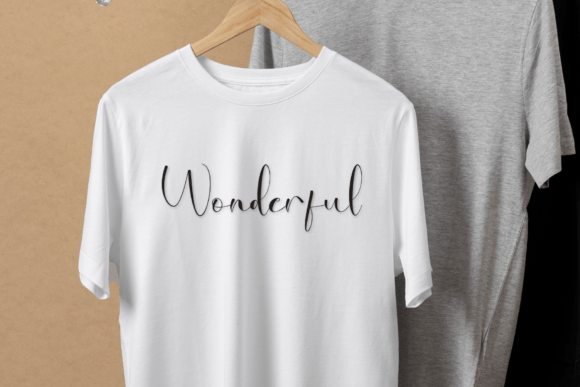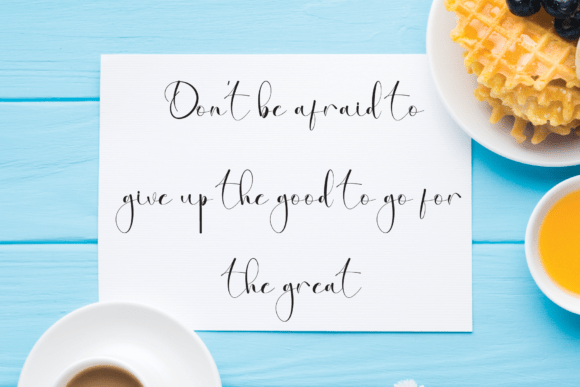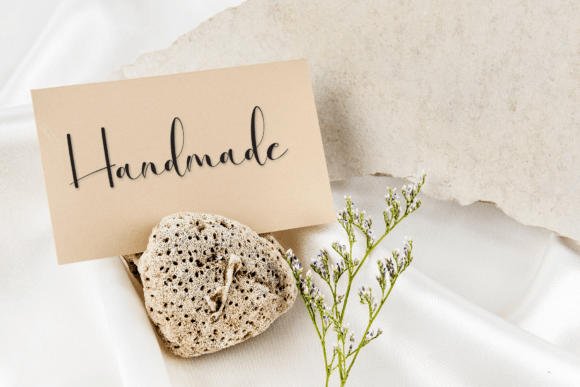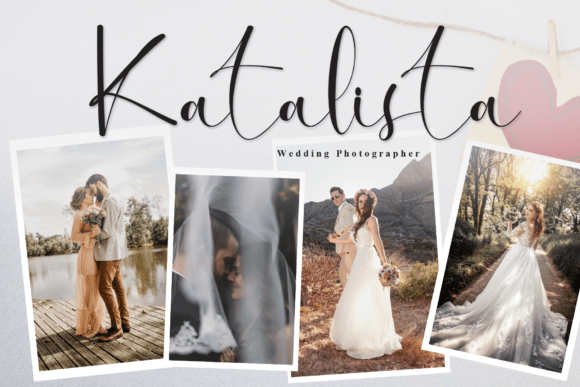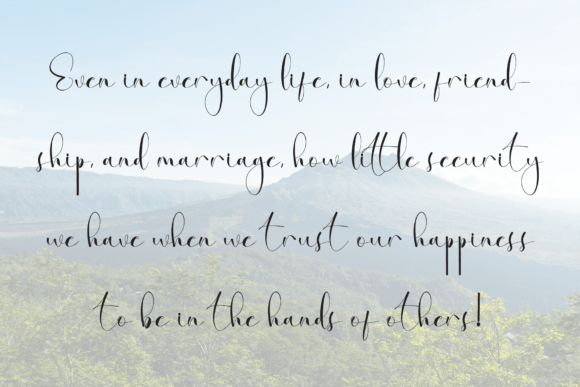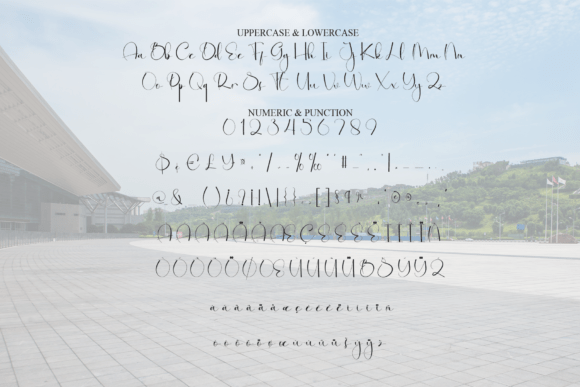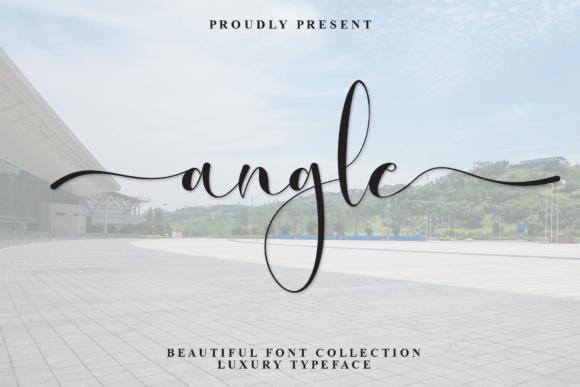
The Ultimate Design Game-Changer: Unleashing the Power of Angle Font
Have you ever been in the middle of a design project, everything is going smoothly, and then you hit a roadblock – the font just isn’t right? I recall a particularly frustrating experience while working on a wedding invitation design. My client wanted something elegant, yet modern, and I was determined to deliver. That’s when I stumbled upon Angle Font, and it completely transformed my design process.
A Personal Review: What I Love About Angle Font
Angle Font has been a revelation for my design workflow. Here are a few things that I absolutely love about it:
- ✨ Extraordinary Experience: The unique style of Angle Font adds a touch of sophistication to any project.
- ✅ Versatility: It’s perfect for a wide range of applications, from wall displays and wedding invitations to social media post logos and product packaging.
While Angle Font has been a game-changer, there are a couple of minor points to consider:
- 🤔 Learning Curve: It might take some time to get accustomed to the unique features and glyphs, but trust me, it’s worth it.
The Story Behind Angle Font
Angle Font was created with the vision of providing designers, crafters, and creative hobbyists with a unique and versatile typeface. The designer aimed to craft a font that not only stands out but also complements a wide range of design projects. With its elegant and modern feel, Angle Font has quickly become a favorite among creatives looking to add a touch of sophistication to their work.
| Is Angle Font suitable for body text? | While Angle Font is stunning for headings and titles, it’s recommended to use a more readable font for body text. Its unique style is best utilized for emphasis and decorative purposes. |
Angle Font has undoubtedly elevated my design projects, offering that extra special something that sets them apart. Its versatility, combined with ease of use, makes it a valuable addition to any designer’s toolkit. Whether you’re crafting beautiful wedding invitations, designing engaging social media posts, or packaging products, Angle Font is sure to enhance your creative output.